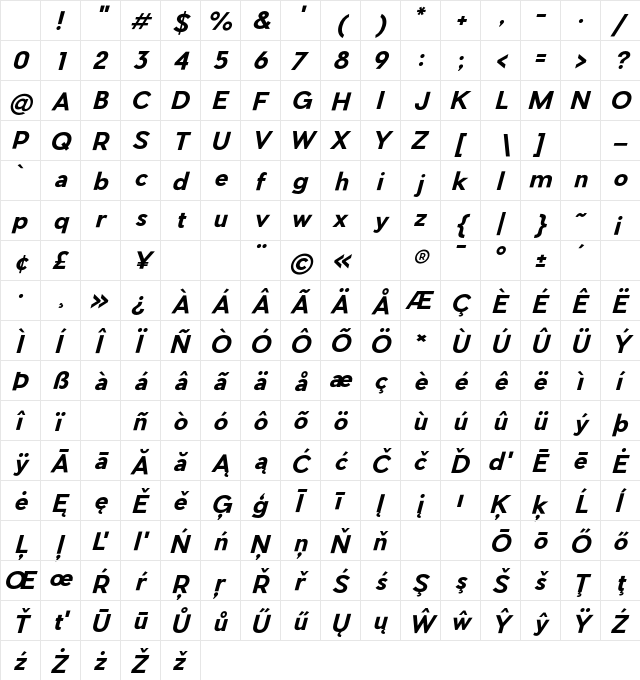
Complete Pier Sans Bold Italic glyph index. Displaying only characters natively supported by Pier Sans Bold Italic font.
Pier Sans is a composed and adaptable typeface that performs quietly and consistently across a wide range of design contexts. The slanted form adds forward momentum and visual energy. Its bold stroke weight gives it real presence on the page.
Pro Tip: Use Pier Sans for emphasis, pull quotes, and subheadings where its slanted energy can add rhythm to the layout.